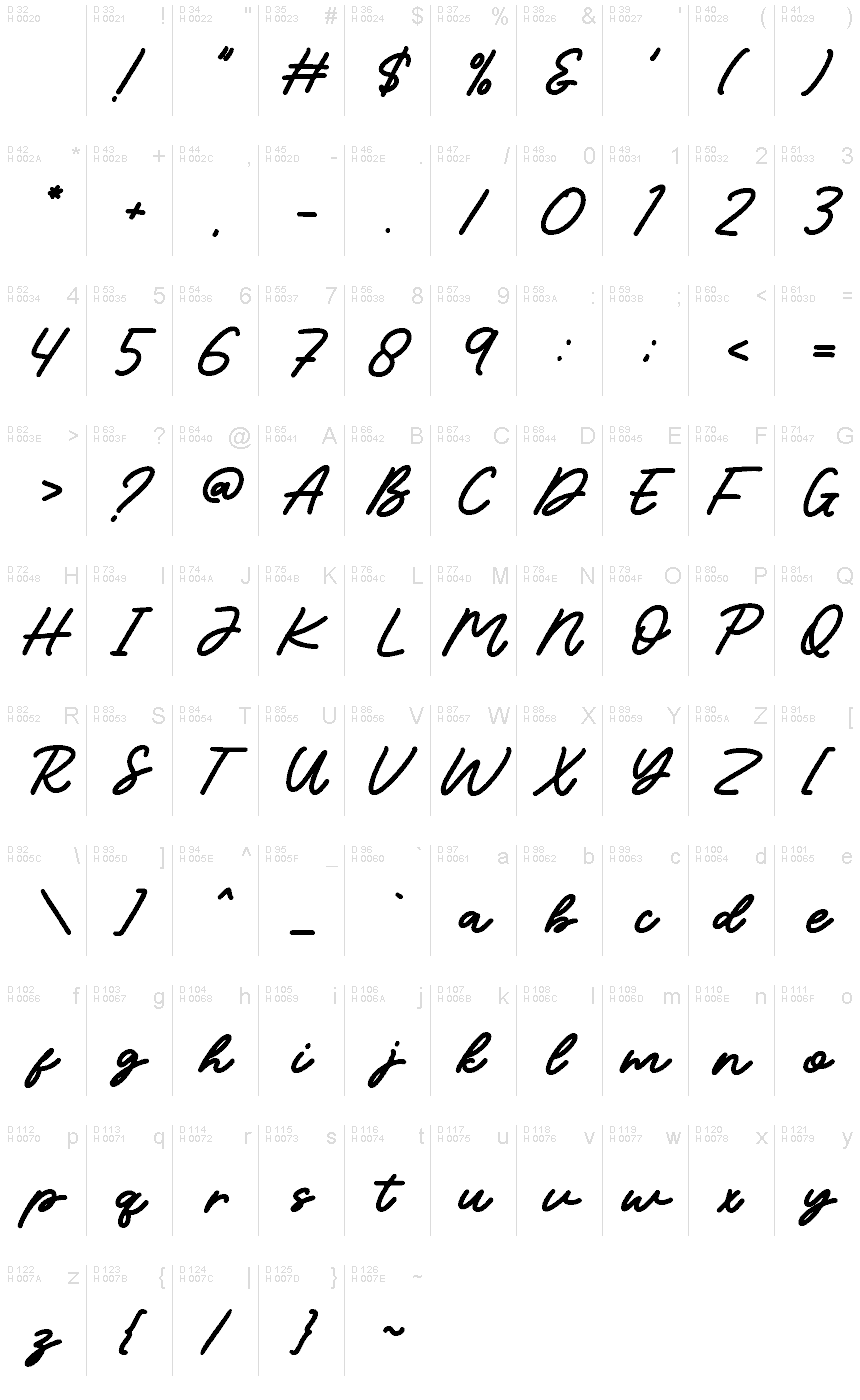
NCL Bestopia
NCL Bestopia font is a creation by Enxyclo Studio with a dynamic, casual, handwritten style that captures the energy of modern design. Its fluid appearance and organic flow make it ideal for projects that demand an informal and lively touch.
Add charm to quotes, book covers, headlines, branding materials, product packaging designs, magazines, logos, event invitations, labels or advertisements. Enjoy NCL Bestopia free handwritten font that brings condensed high in character letterforms and words too.